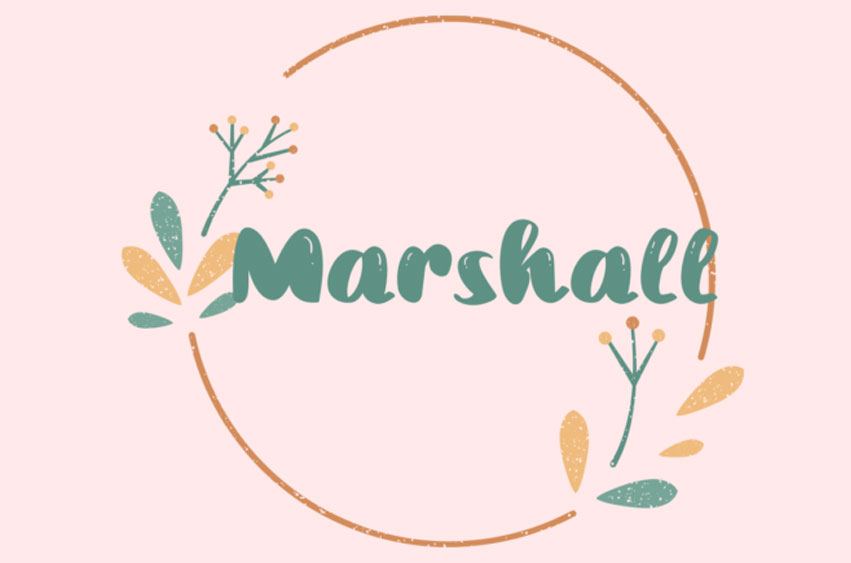
Marshall Font Character design work from the concept of handwriting by applying different brushes. Make the font design work differently. Having its uniqueness, this font design can be used to increase the prominence of your work, whether you use it in a letter. Design greeting cards, wedding cards, etc.
Make your letters look different. With this designed font, your work will be highlighted with the novelty of the font. Strange artistic characters. You can choose to use the typography design artwork at your convenience.